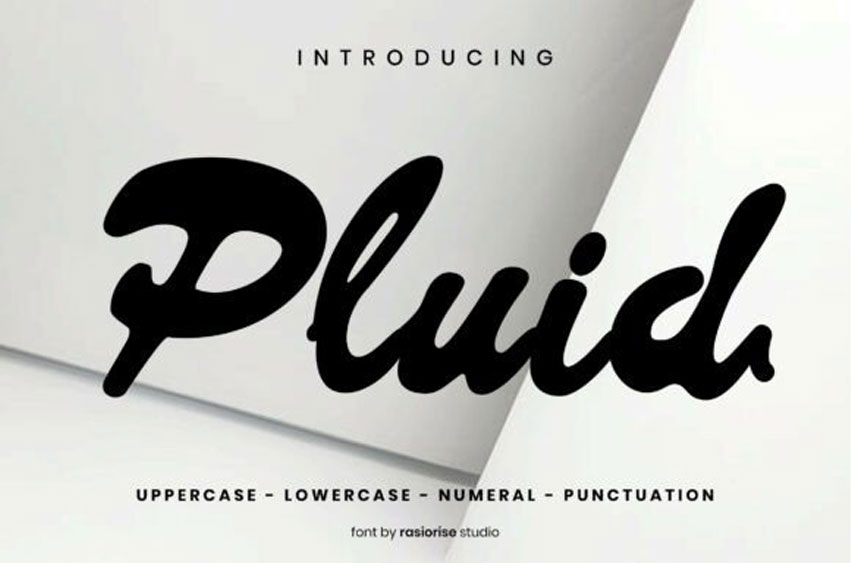
Pluid Font Script Font is designed for those seeking a bold, handwritten script style with a touch of playfulness. Inspired by classic script fonts and reimagined with modern flair, Pluid combines flowing curves and strong strokes to create a font that’s both expressive and easy to read. Let your creativity shine—Pluid is perfect for any project that needs a bold yet approachable personality.
This font is ideal for logotypes, book covers, wedding invitations, gift cards, greeting cards, posters, merchandise, packaging labels, badges, emblems, and much more.